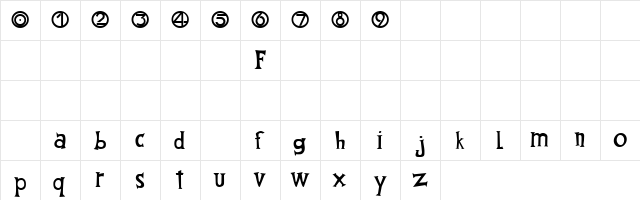
Fantique Four Shareware Regular
Design Context for Fantique Four Shareware Typeface
Fantique Four Shareware wears its vintage influences proudly, with letterforms that recall mid-century signage, classic packaging, and nostalgia-driven design.
Font Pairing: Combine Fantique Four Shareware with a simple slab or neutral sans — period-accurate companions reinforce the vintage feel without competing for attention.
Pro Tip: Lean into Fantique Four Shareware's period character by pairing it with aged paper textures, muted colour palettes, and vintage illustration styles.